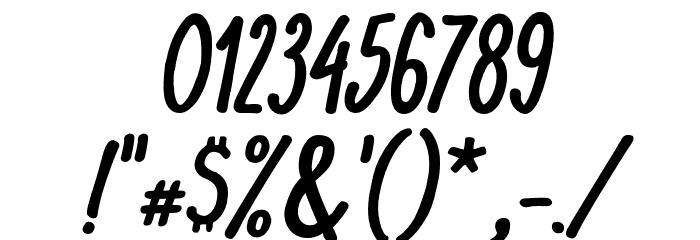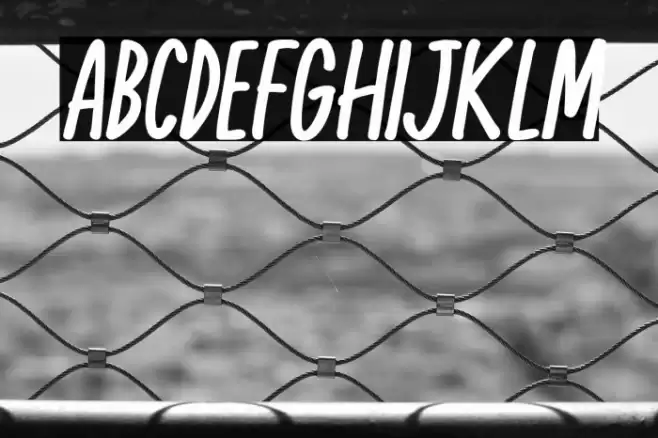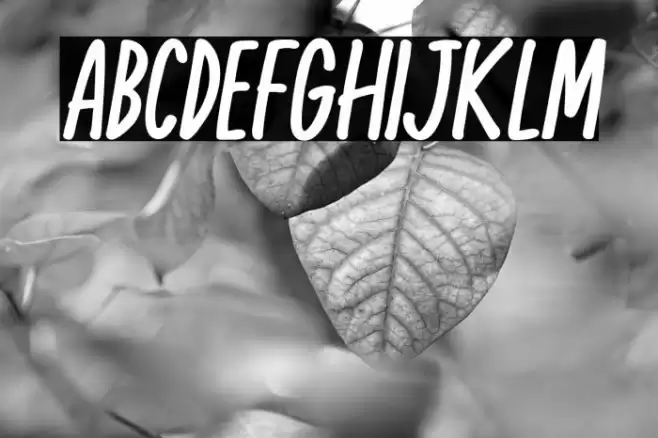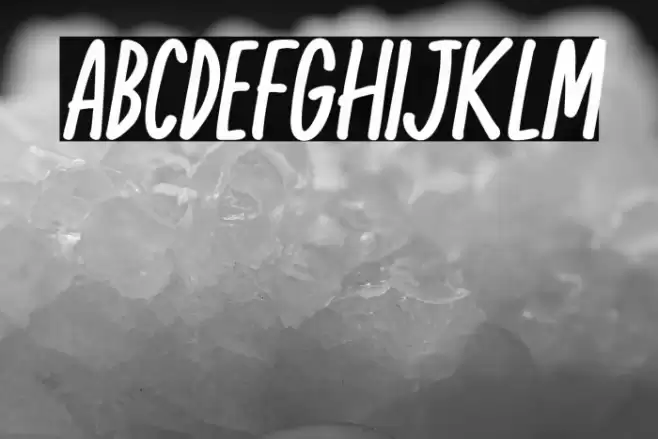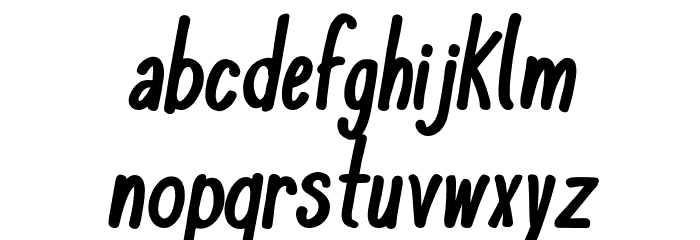
KomixCon Bold Italic Font
| Style général | Playful |
| Projets proposés | Perfect for comic books, children's books, playful branding, and eye-catching posters. |